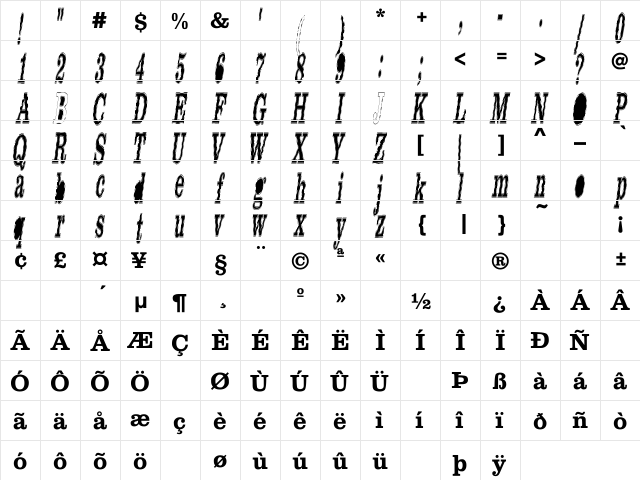
FREE N WILD Regular
Design Context for FREE N WILD Typeface
FREE N WILD is a composed and adaptable typeface that performs quietly and consistently across a wide range of design contexts.